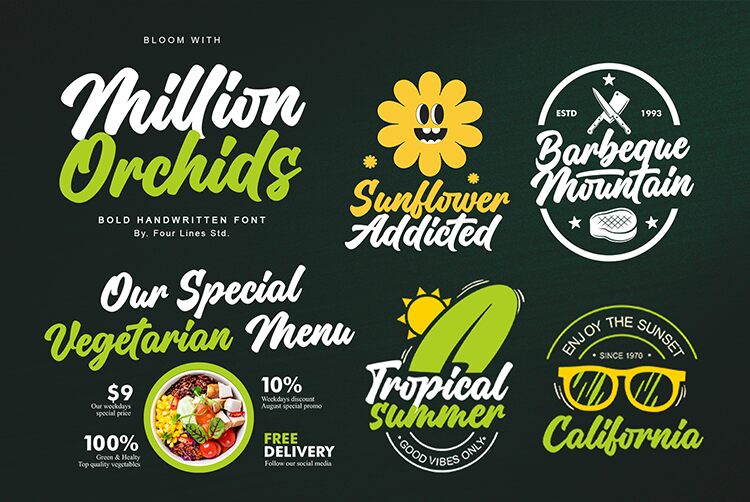
Million Orcids
Million Orcids font by Four Lines is a captivating brush-style typeface that exudes boldness and creativity. Its sweeping strokes and dynamic curves offer an artistic flair, making it a striking choice for eye-catching projects. The inherent energy of this bold brush font adds personality and warmth, perfect for branding, headlines, or invitations that demand attention.
With its unique aesthetic appeal, Million Orcids brings a touch of elegance and spontaneity to any design. Whether you're looking to enhance a marketing campaign or personalize wedding stationery, this free font download provides the perfect opportunity to elevate your work with just the right amount of character and charm.